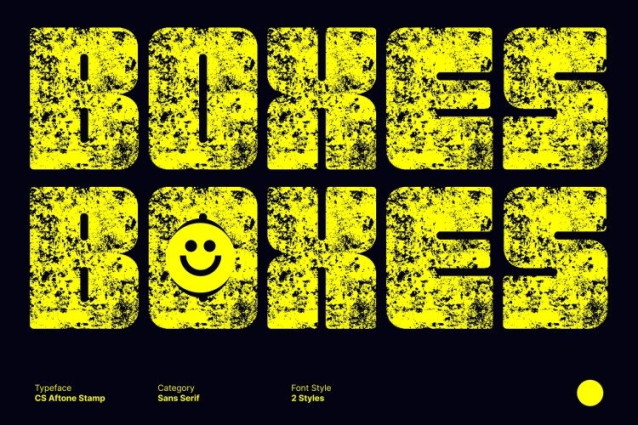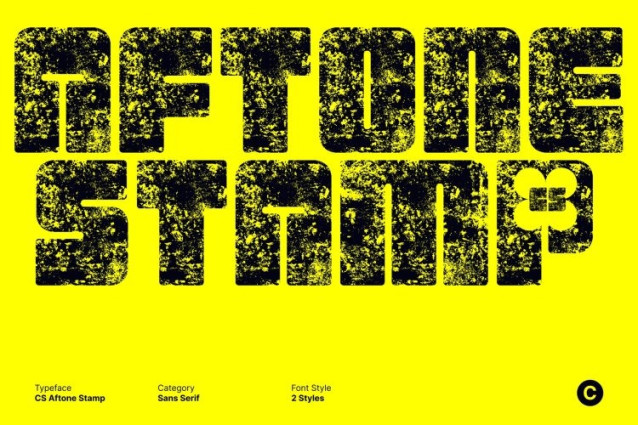
CS Aftone Stamp Font
CS Aftone Stamp Font This is a bold sans serif font built on clean geometry and confident proportions. Its solid letterforms deliver clarity and strength, creating a powerful visual presence. Enhanced with a subtle stamp effect, the font gains texture and character while preserving its modern, impactful design.
Minimalist Design with Vintage Nuance
Rooted in contemporary minimalism, this font avoids unnecessary ornamentation, focusing on form and balance. The stamped texture introduces an old-print, artistic feel that adds warmth and depth, preventing the design from feeling overly sterile while maintaining a sleek and professional edge.
Balanced Proportions for Clear Communication
Carefully crafted spacing and geometric construction ensure excellent readability across sizes and mediums. The textured finish adds expressive detail without disrupting clarity, allowing this font to perform beautifully in headlines, signage, interfaces, and printed materials.
Versatile for Bold Branding and Modern Media
Ideal for branding, posters, websites, apps, packaging, and editorial layouts, this font delivers a confident and distinctive typographic voice. Its bold modern foundation combined with vintage stamp character makes it perfect for brands seeking strength, clarity, and lasting visual impact.